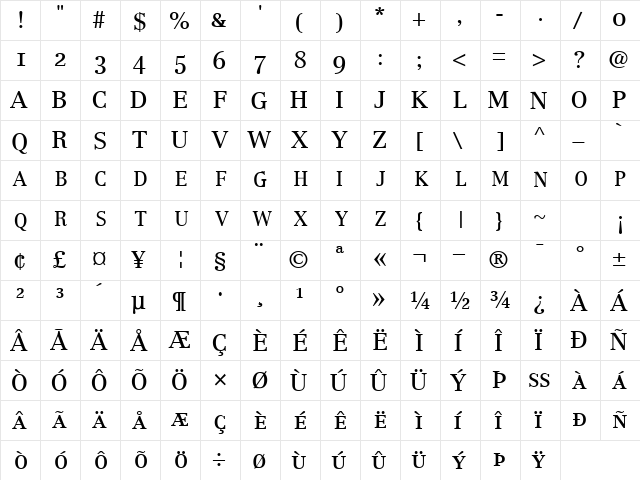
CenturyRepriseOSSCapsSSK Regular
Design Context for CenturyRepriseOSSCapsSSK Typeface
CenturyRepriseOSSCapsSSK is a composed and adaptable typeface that performs quietly and consistently across a wide range of design contexts.